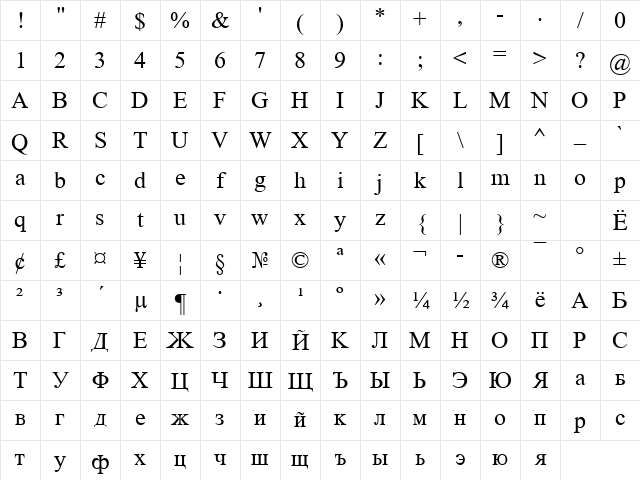
Complete Times LatRus Regular glyph index. Displaying only characters natively supported by Times LatRus Regular font.
Times LatRus is a composed and adaptable typeface that performs quietly and consistently across a wide range of design contexts.